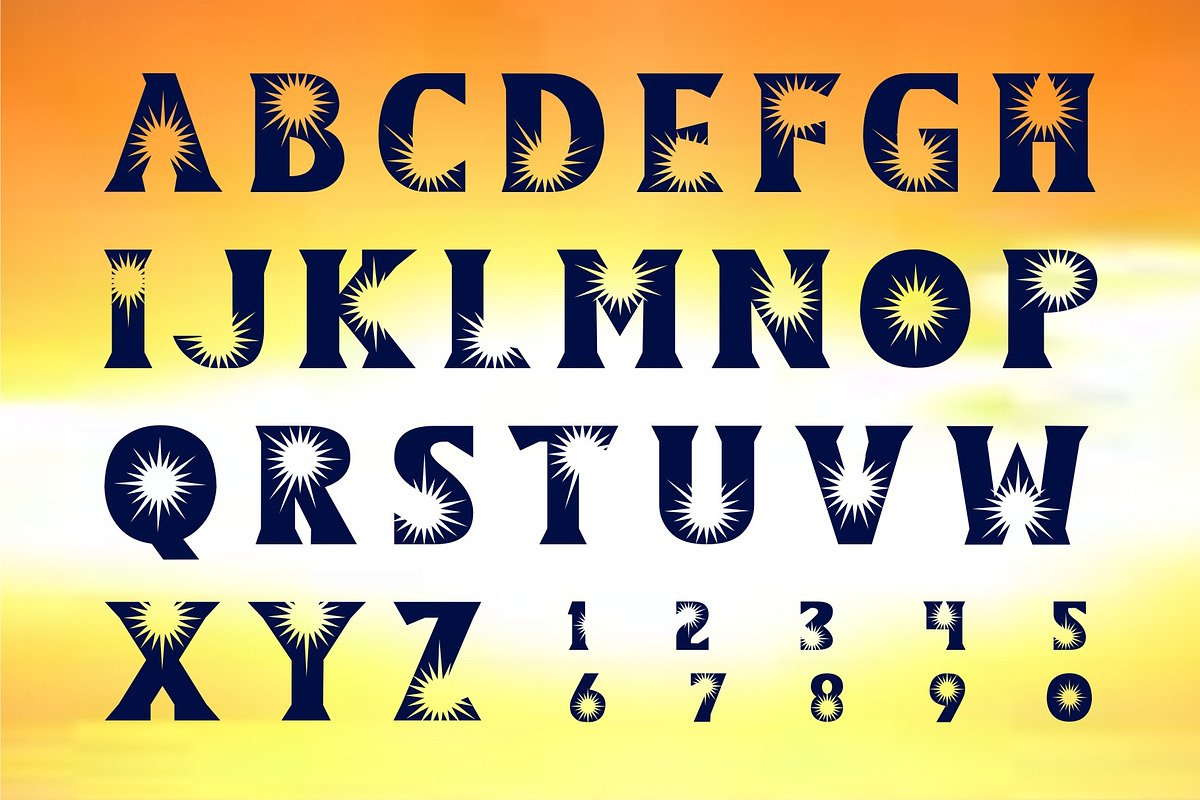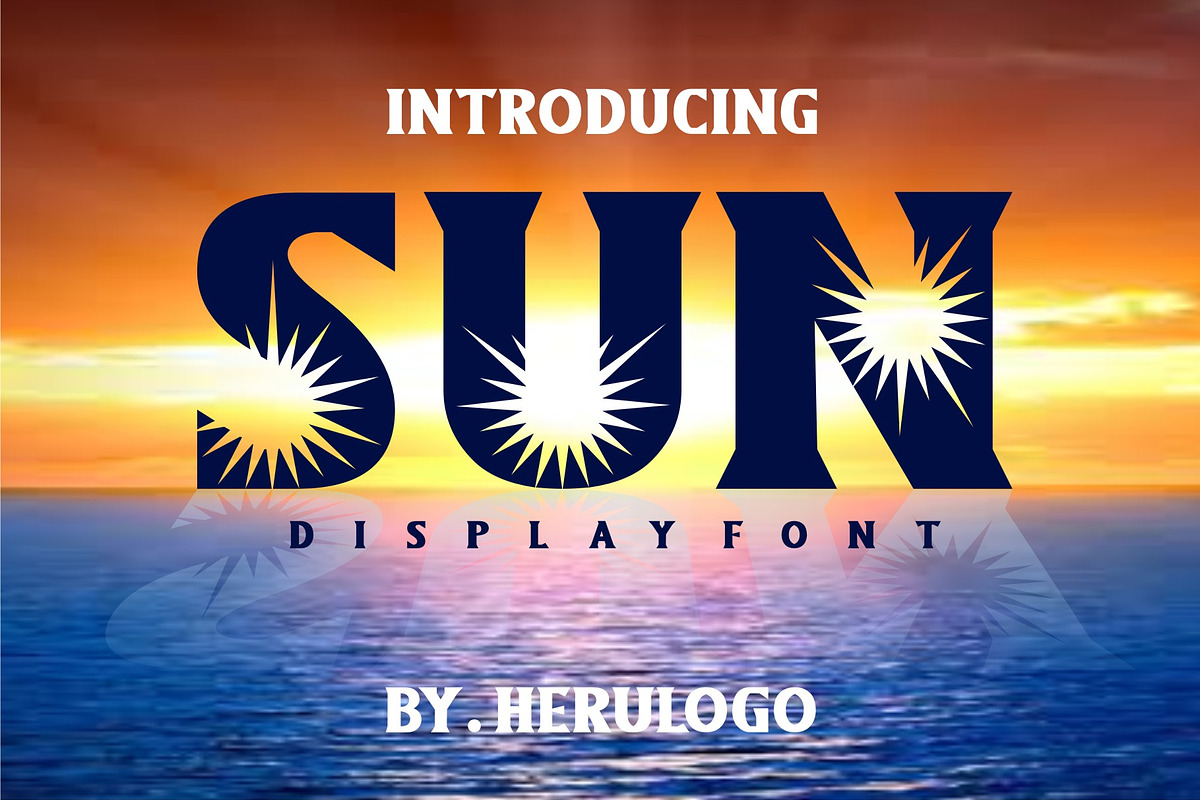
SUN Display Font
Unique display font, font with the light of the sun inside.
SUN Display Font by herulogo fits naturally into Branding, posters, packaging, typography.